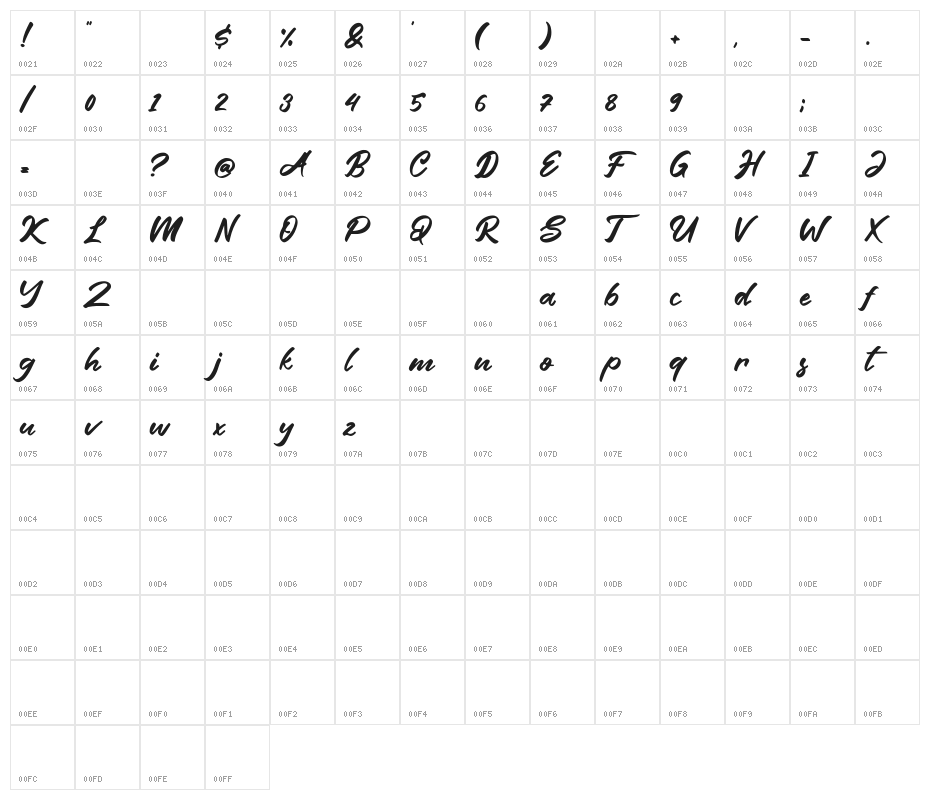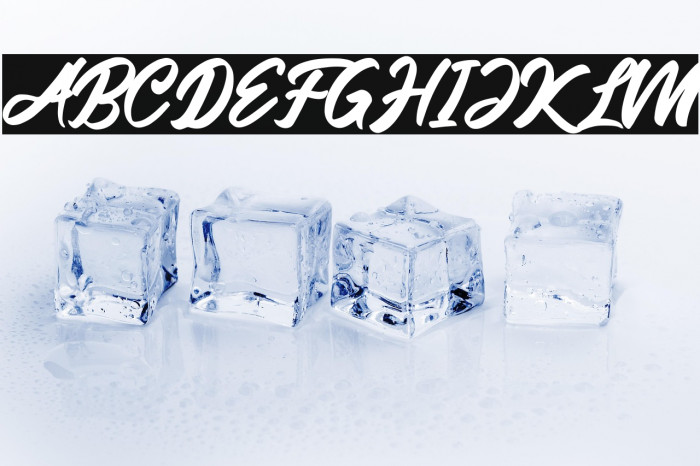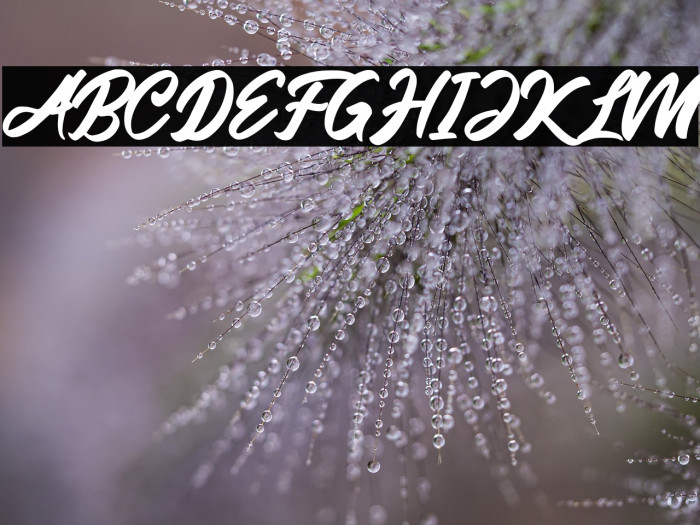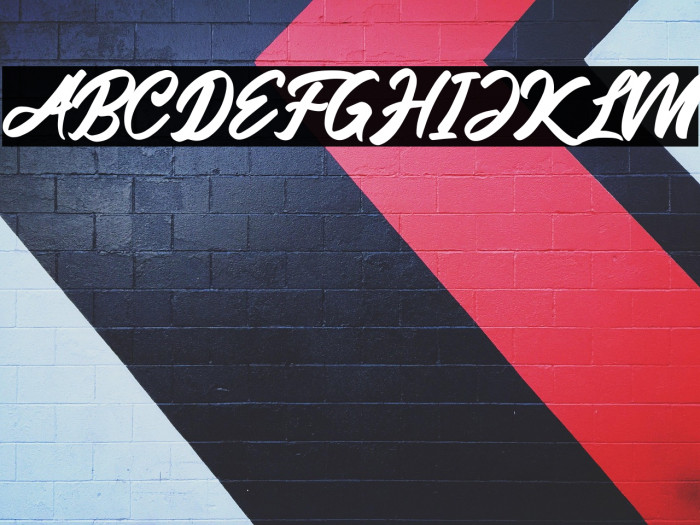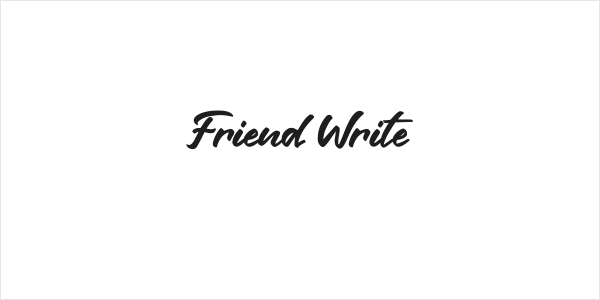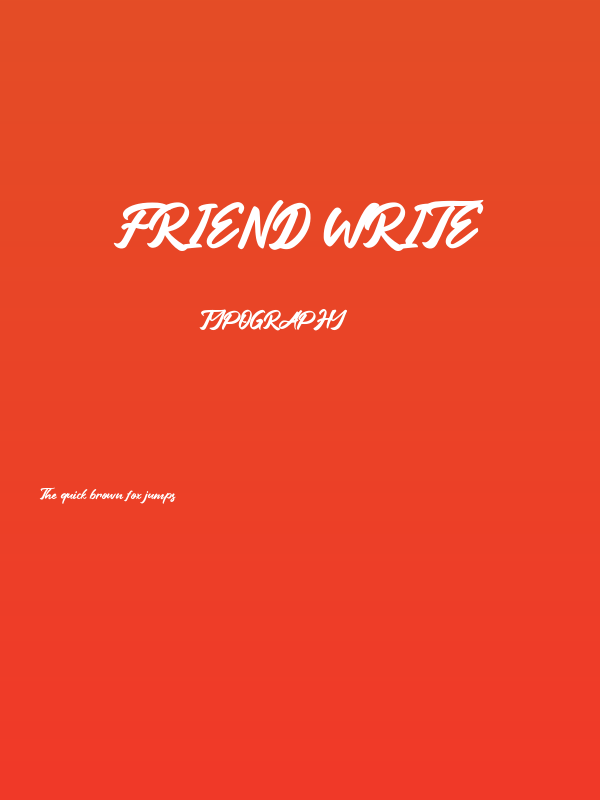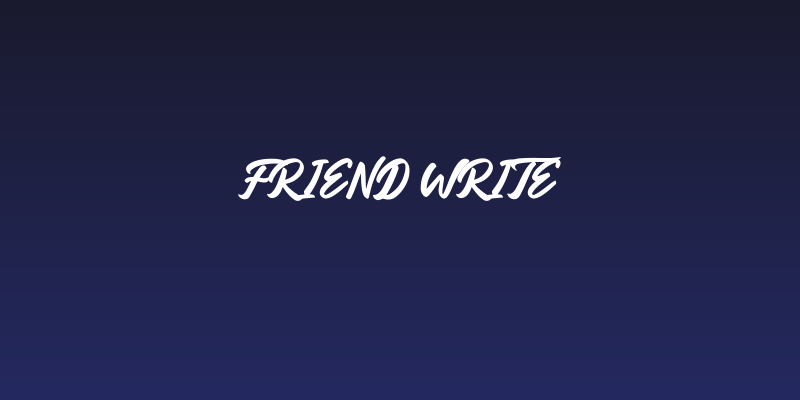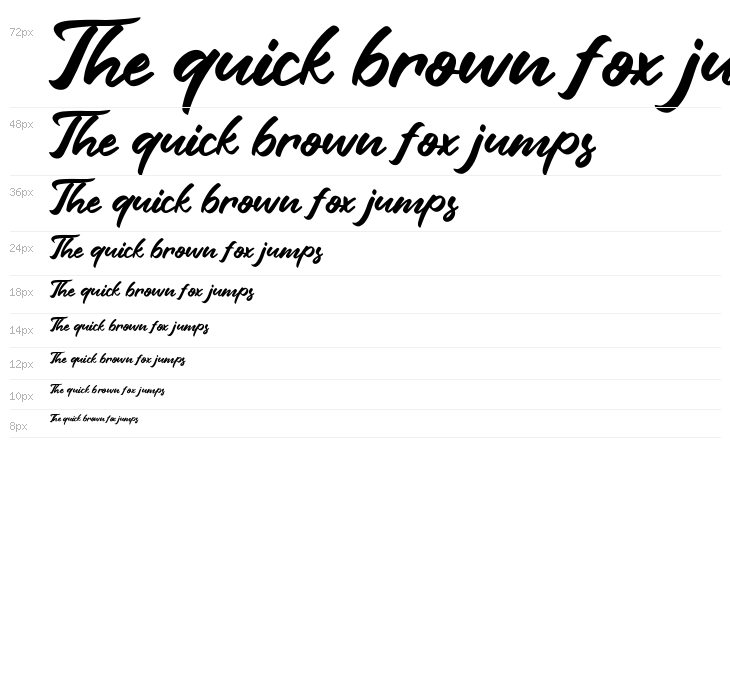
Friend Write Font
Friend Write Description
This font exhibits a bold, cursive style with a flowing, handwritten appearance. The characters are connected, creating a seamless and elegant look. The uppercase letters are slightly larger and more pronounced, while the lowercase letters maintain a consistent flow. The numbers and special characters are designed to match the overall aesthetic, with smooth curves and a dynamic presence. This font is ideal for projects that require a personal touch or a sense of sophistication and style.
| Use Case | Logos, Headlines, Invitations |
| Proposed Projects | Ideal for wedding invitations, greeting cards, branding, and logo design. |